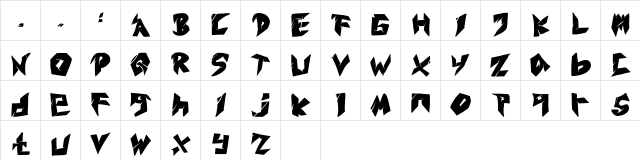
Zubrutal Regular
Design Context for Zubrutal Typeface
Zubrutal is a composed and adaptable typeface that performs quietly and consistently across a wide range of design contexts.